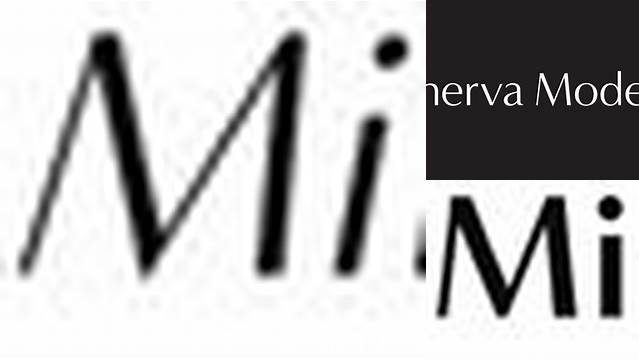
Minerva Font Free Download: Modern Family For You
Hey guys! Are you on the hunt for a sleek, modern font to elevate your design projects? Look no further! The Minerva modern font family is here, and guess what? We're diving deep into where you can snag it for free and how to make the most of it. Whether you're a seasoned designer or just starting, understanding the nuances of font selection can make all the difference. So, let's get started and explore everything about this fantastic typeface!
What is the Minerva Modern Font Family?
Let's start with the basics. The Minerva modern font family is a versatile typeface known for its clean lines, contemporary feel, and wide range of weights and styles. It's designed to be legible and aesthetically pleasing, making it a go-to choice for various design applications, from branding and logos to web design and print materials. Its elegance and simplicity make it a standout option for designers aiming to create a sophisticated yet approachable look. With its balanced letterforms and meticulous detailing, Minerva offers a touch of class to any project, ensuring that your message is conveyed with clarity and style. So, if you're looking for a font that combines modern aesthetics with functional design, Minerva is definitely worth exploring.
Key Features of the Minerva Font Family
The Minerva font family is packed with features that make it a top choice for designers. Its clean, geometric design offers a modern and professional look, ideal for a wide range of applications. The family typically includes multiple weights, from light to bold, providing flexibility in creating visual hierarchy. Its versatility extends to different styles, such as regular, italic, and sometimes even condensed or extended versions, allowing for diverse design needs. The letterforms are carefully crafted to ensure readability, making it suitable for both headlines and body text. Additionally, the character set usually includes a comprehensive range of glyphs, supporting various languages and symbols. All these features combine to make Minerva a robust and adaptable font family for any designer's toolkit. When choosing a font for your next project, consider how these key features align with your design goals and brand identity. Understanding these elements will help you make an informed decision and leverage the full potential of the Minerva font family.
Minerva Alternatives: Similar Fonts to Explore
If you're loving the modern vibe of Minerva but haven't found the perfect free download, don't worry! There are plenty of fantastic alternatives out there. Fonts like Montserrat and Lato, available on Google Fonts, offer a similar clean, sans-serif aesthetic and are completely free to use. Open Sans is another excellent option, known for its readability and versatility. For a slightly more unique touch, consider Raleway or Nunito Sans. These fonts share Minerva's modern, geometric qualities and come in various weights and styles, giving you ample flexibility for your projects. Exploring these alternatives not only expands your font library but also helps you appreciate the nuances of different typefaces. Each font has its own personality, and finding the right one can significantly enhance your design. So, don't limit yourself to just one option β dive into the world of font alternatives and discover the perfect match for your creative vision.
How to Use Minerva in Your Design Projects
Okay, so you've got Minerva (or a similar font) downloaded, now what? The beauty of Minerva lies in its versatility, making it a fantastic choice for a wide array of design projects. For branding, its clean lines and modern aesthetic can help create a sophisticated and professional image. Use it in your logo, business cards, and marketing materials for a cohesive look. In web design, Minerva's legibility ensures a pleasant reading experience, whether for headlines or body text. For print materials like brochures or posters, its clarity makes it stand out. Experiment with different weights and styles within the font family to create visual hierarchy and emphasize key information. Pair Minerva with contrasting fonts to add depth and interest to your designs. Remember, the key is to balance aesthetics with functionality. Choose font sizes and line heights that ensure readability, and don't be afraid to play around with spacing and letter tracking to achieve the perfect look. With a little creativity, Minerva can be a powerful tool in your design arsenal.
Minerva Font Pairing: Best Font Combinations
Font pairing is like matchmaking for your designs! The right combination can elevate your project, while a mismatch can be jarring. When using Minerva, think about fonts that complement its modern, clean style. A classic pairing is with a serif font for body text, like Merriweather or Playfair Display. These fonts offer a touch of elegance and contrast nicely with Minerva's sans-serif simplicity. For a more contemporary feel, try pairing Minerva with another sans-serif font, such as Open Sans or Roboto. The key is to create a balance. If Minerva is used for headlines, choose a body text font that's highly readable and doesn't compete for attention. Conversely, if Minerva is used for body text, a bolder, more expressive font can be used for headings. Experiment with different pairings to see what works best for your specific project. Tools like FontPair can also provide inspiration and suggestions. Remember, the goal is to create a harmonious visual experience that enhances your message, not distracts from it. With a little thought and experimentation, you can find the perfect font pairing for Minerva and make your designs shine.
Designing a Logo with Minerva Font
Designing a logo? Awesome! Minerva is a stellar choice for creating a modern and memorable brand identity. Its clean lines and contemporary feel make it incredibly versatile for various industries and styles. When using Minerva for a logo, start by considering the overall brand personality. Is it sleek and professional? Or more playful and creative? This will guide your font selection and styling choices. Experiment with different weights and styles within the Minerva family to find the perfect balance. A bolder weight can convey confidence and authority, while a lighter weight can suggest elegance and sophistication. Pay attention to letter spacing and kerning to ensure a polished look. You might also want to explore customizing the font slightly to make it unique to your brand. This could involve adjusting the letterforms or creating a custom ligature. Remember, your logo is the face of your brand, so it's worth investing time and effort into getting it just right. With its modern aesthetic and adaptability, Minerva can be a powerful tool in creating a logo that stands the test of time.